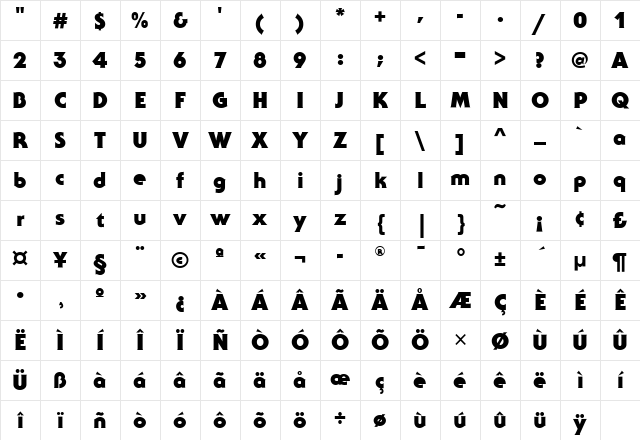
SerifGothicHvyITC Black
Foundry: E+F Designstudios. ITC Serif Gothic is a registered trademark of International Typeface Corporation
Design Context for SerifGothicHvyITC
SerifGothicHvyITC carries the refined structure of traditional serif typography, with bracketed terminals and considered proportions that communicate credibility and craft.
Who designed the SerifGothicHvyITC Black font?
This font was published by E+F Designstudios. ITC Serif Gothic is a registered trademark of International Typeface Corporation. Check the technical specs section for copyright and designer details.